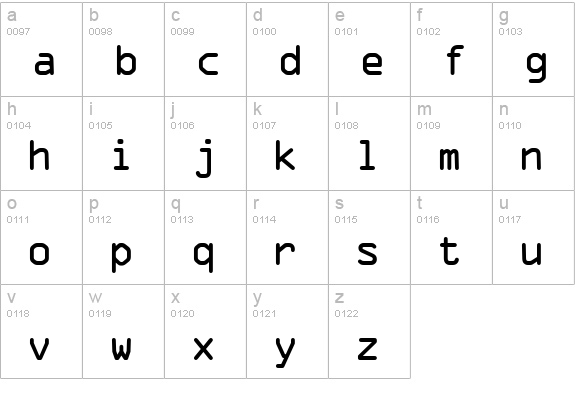
OCR-A-Regular Font Details
OCR-A-Regular is the standard, neutral variant in the OCR typeface family \xE2\x80\x94 well suited to general body text, paragraphs, and standard typographic work.
OCR-A-Regular is a classic and widely recognized font designed for Optical Character Recognition applications. Its clean and legible design makes it ideal for scanning and digitizing text, making it a popular choice for official documents, bank statements, and barcodes. This typeface features a monospaced design with distinct geometric shapes, providing excellent readability for machine reading. Best of all, OCR-A-Regular is freely available to download at FontsMarket.com. Whether you're looking to enhance your business documents or create professional-looking barcodes, this font is a versatile and practical choice. Download OCR-A-Regular today and experience the convenience and efficiency of this timeless font.